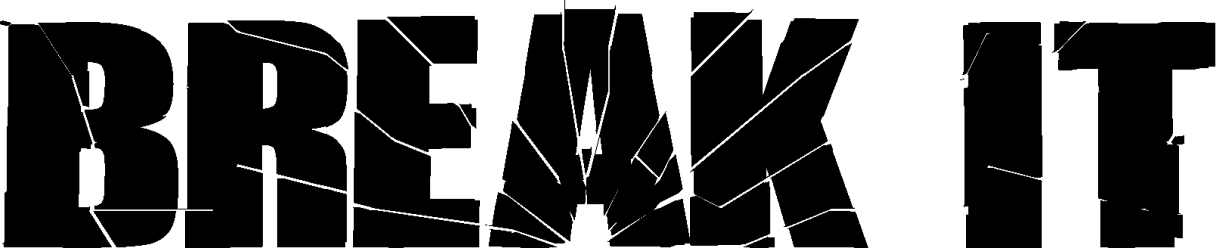
Break It Font
The broken glass effect that this fantastic has, makes it an awesome selection. The bold thick solid characters that Break It font offer look unstable. They are also distressed and rough but trendy.
There are capital A to Z alphabets, numbers, and some punctuations but it dismisses lowercase letters. Break It is a terrific font when it comes to designing typography for places like magazines, apps, games, flyers, and movie titles or where you have in mind.